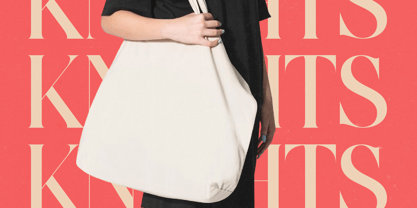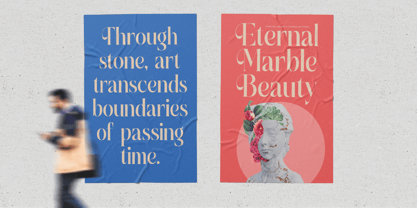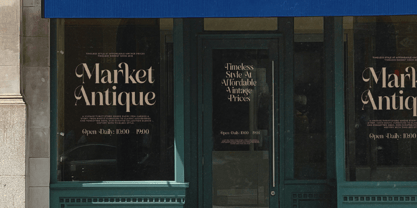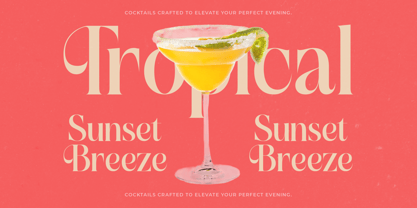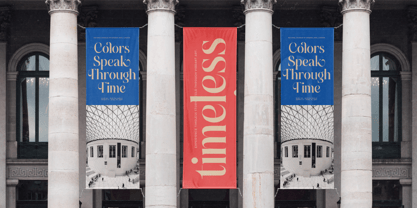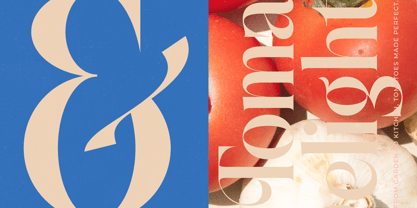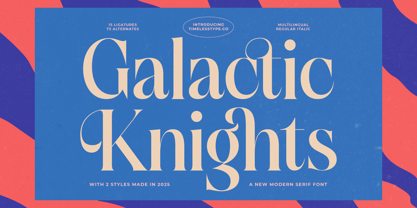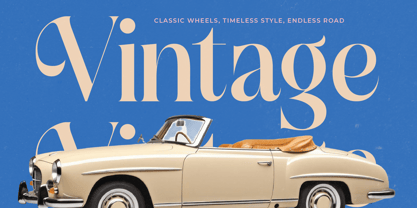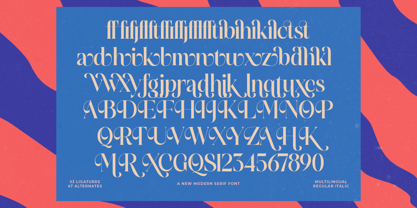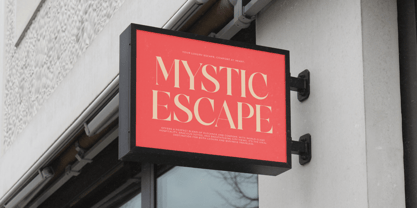
Galactic Knights
The Galactic Knights Font Family was designed by Heru Utama Putra and published by Timelesstype Studio. Galactic Knights contains 2 styles and family package options. More about this family
Galactic Knights - Modern Serif Font , from Timelesstype , Suitable for any projects such as: logos, branding projects, homeware designs, product packaging, mugs, quotes, posters, shopping bags, t-shirts, book covers, name card, invitation cards, greeting cards, label, photography, watermark, special events, and all your other luxury and beautiful projects that need a Luxury Serif taste.